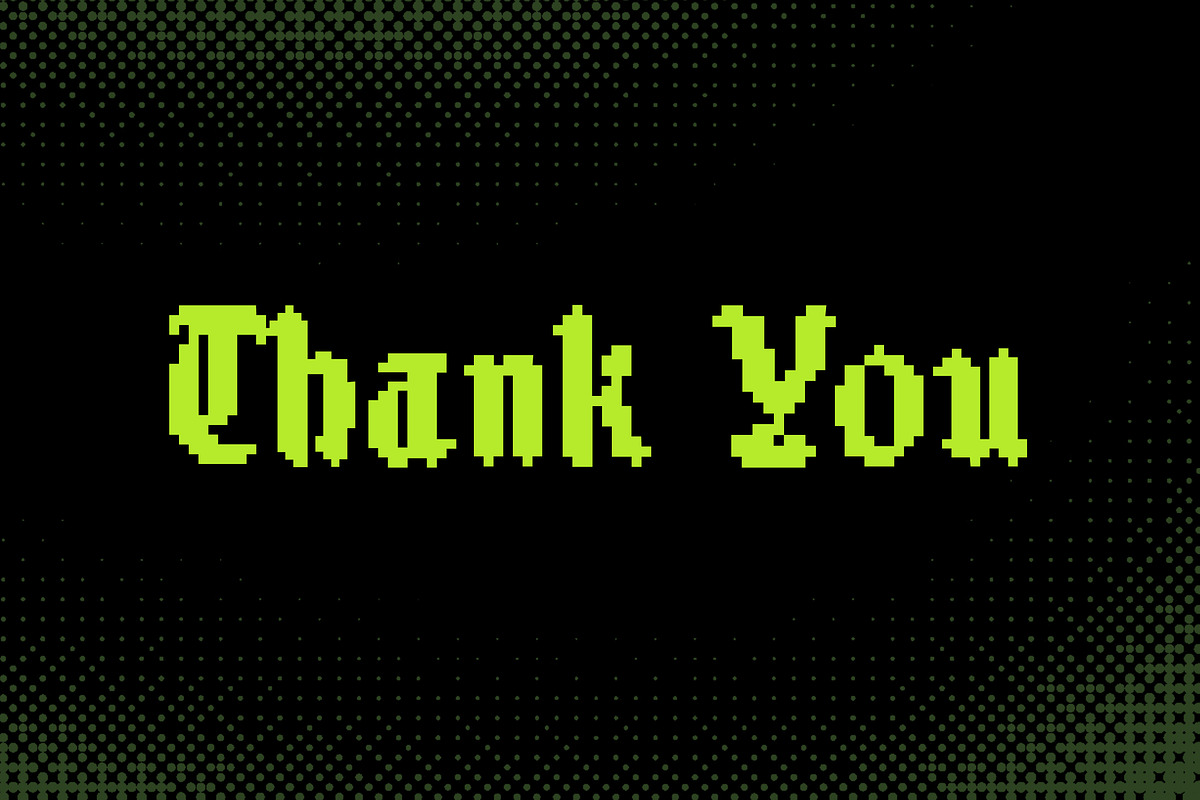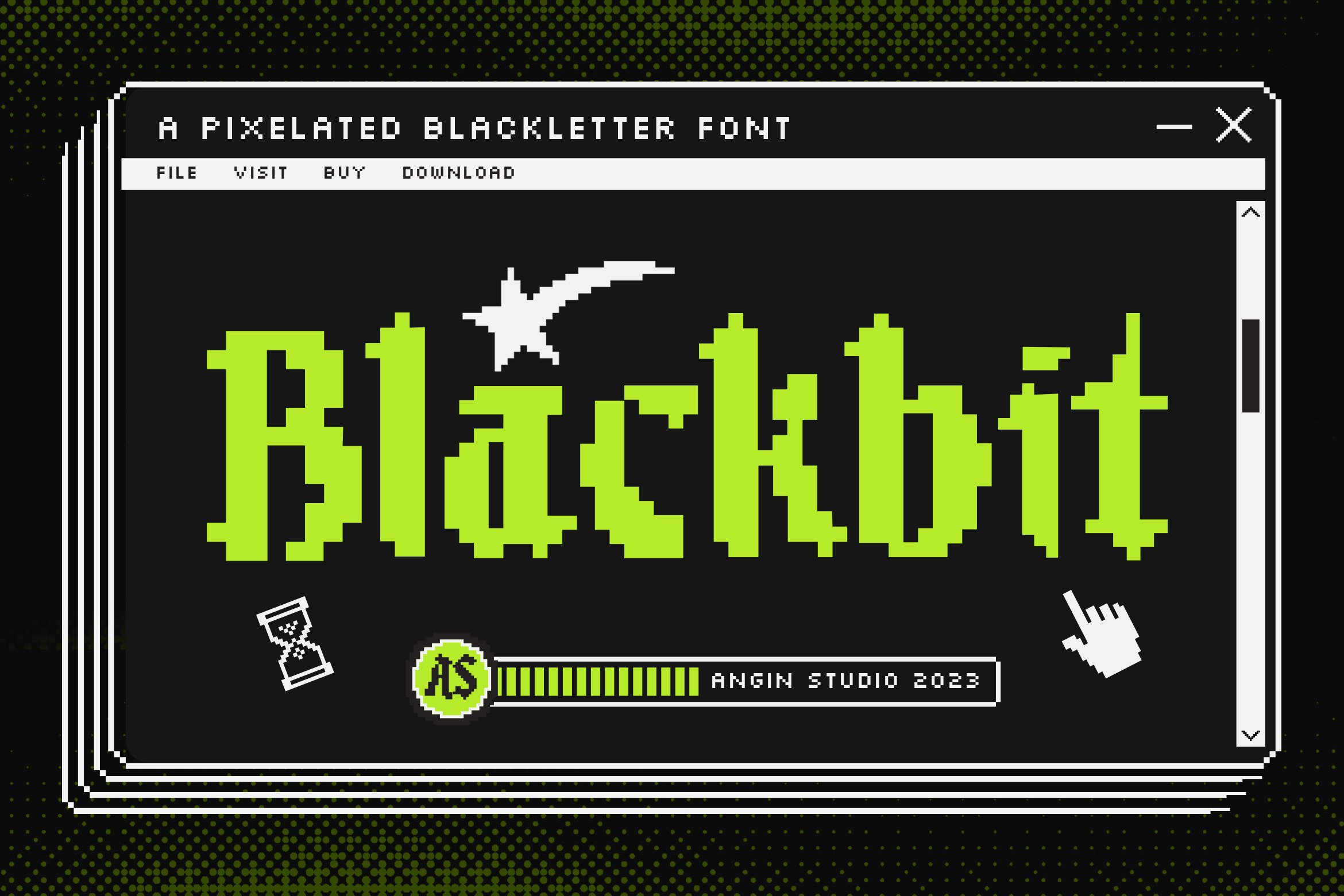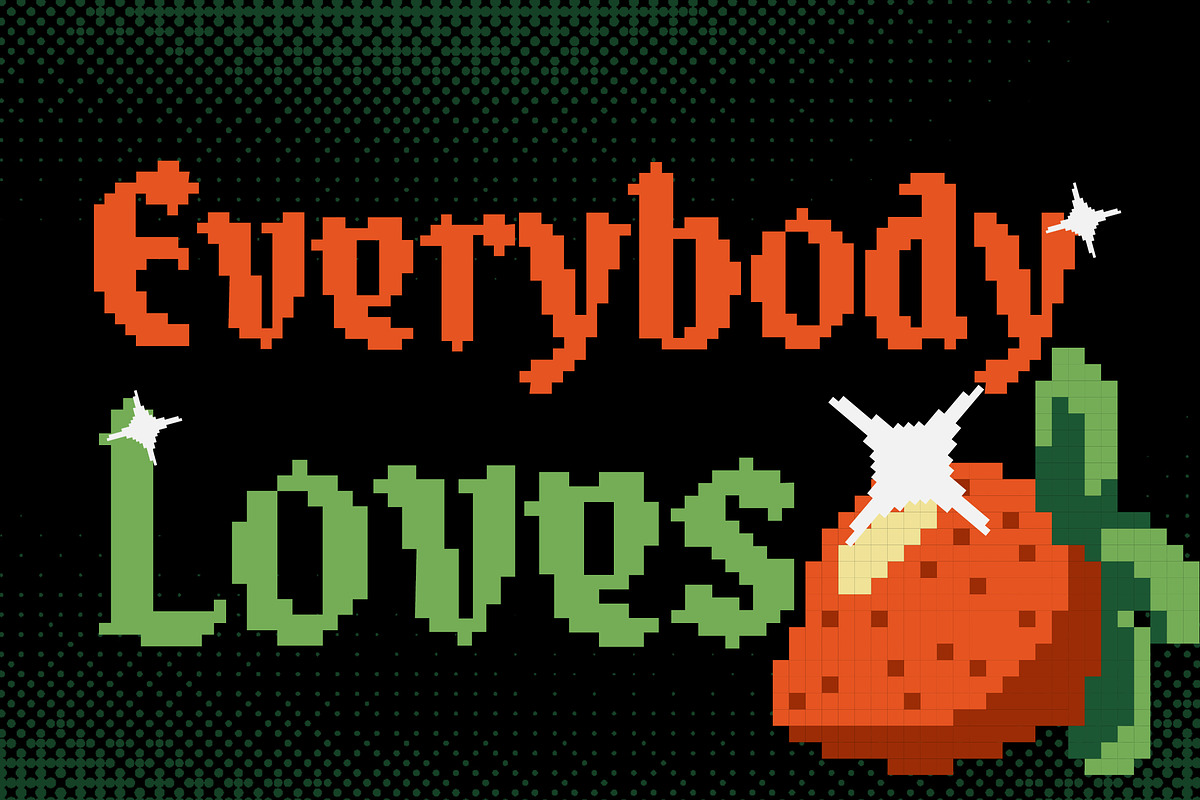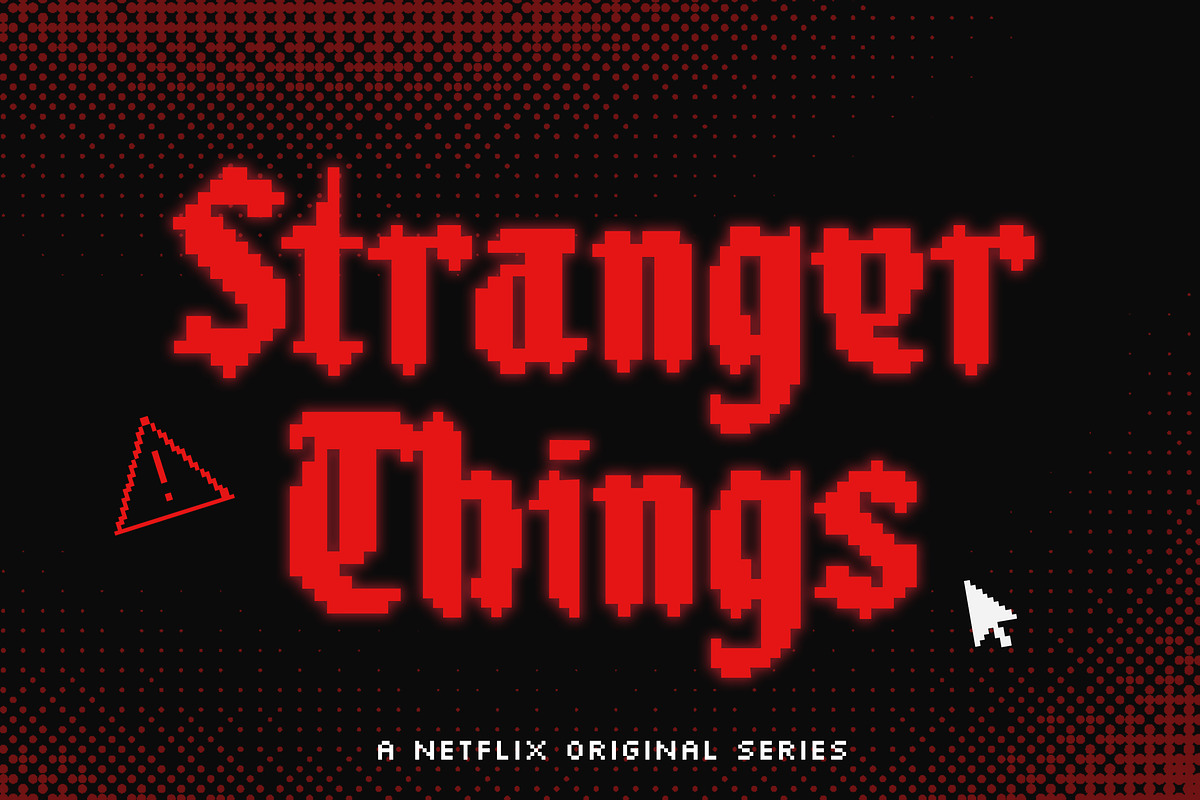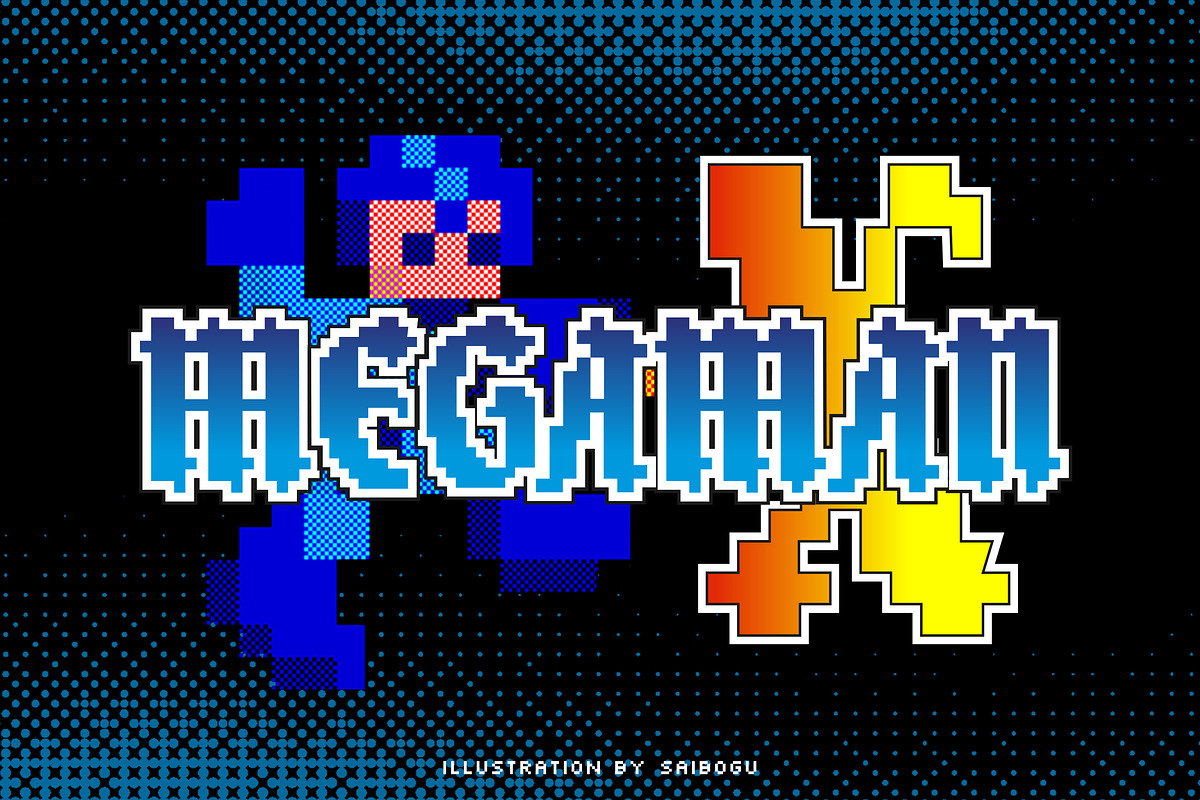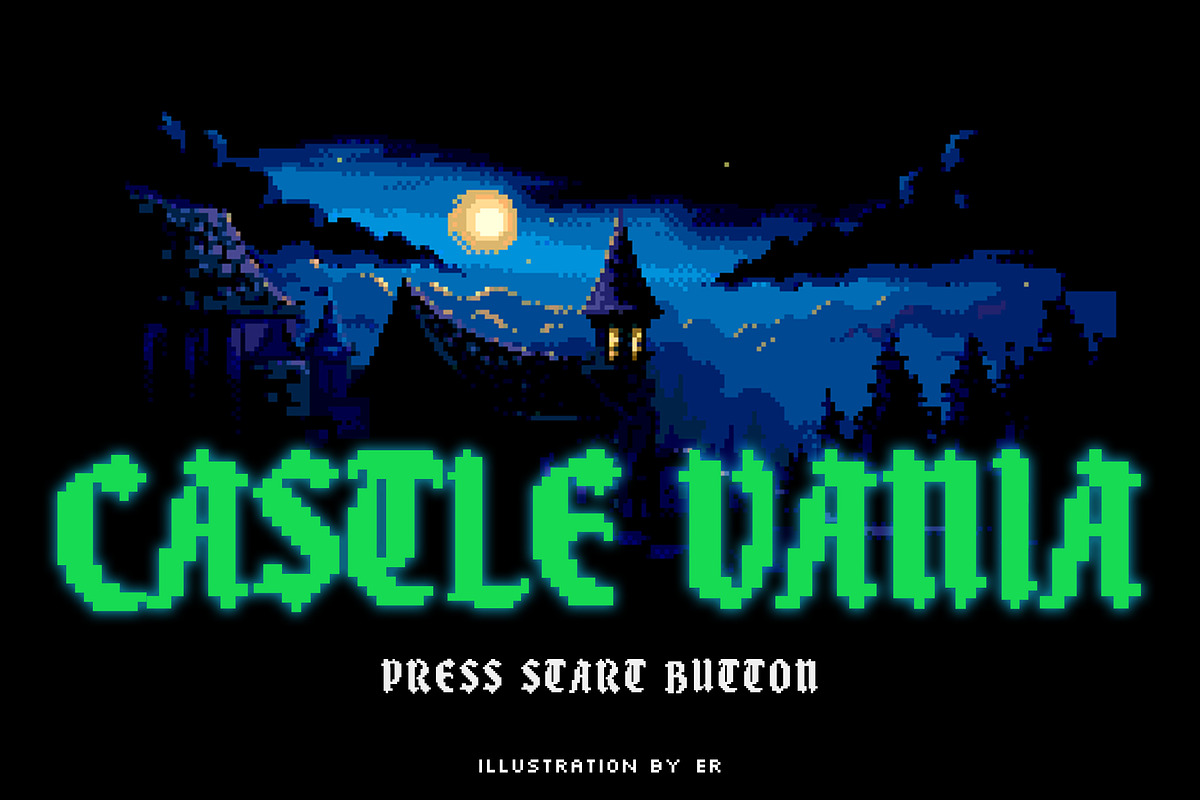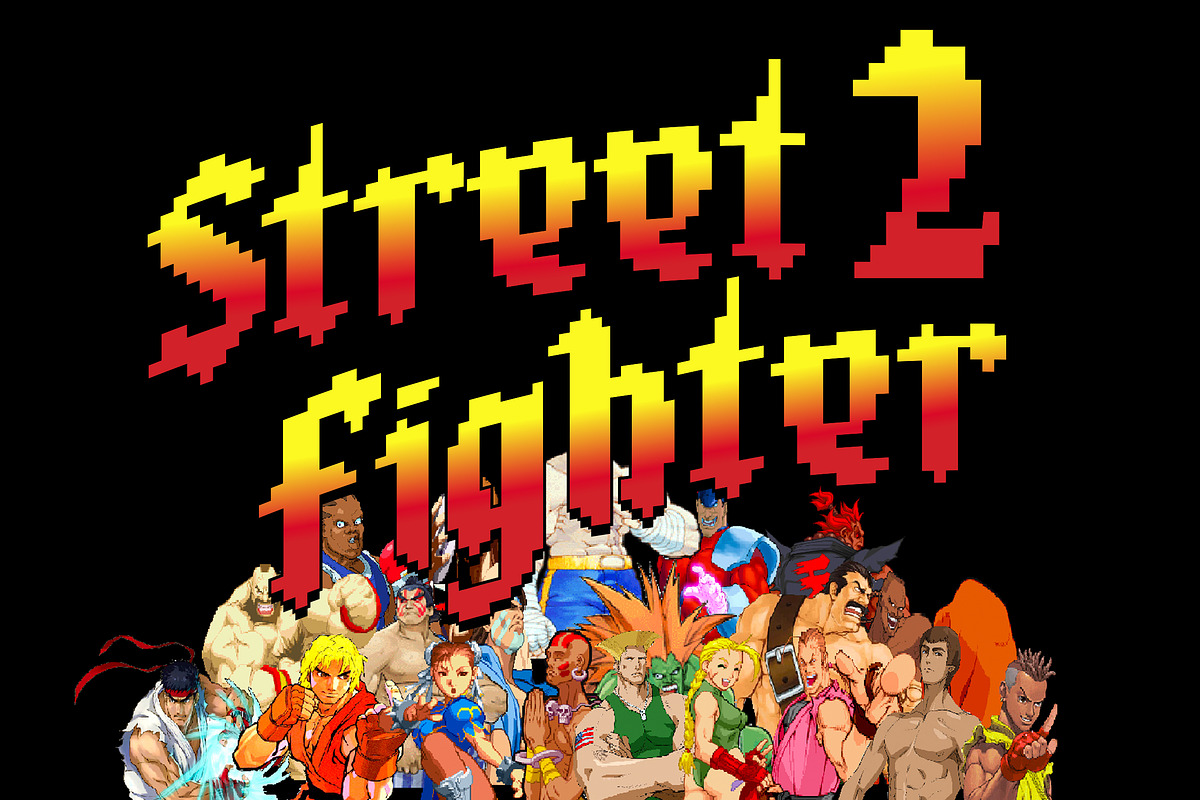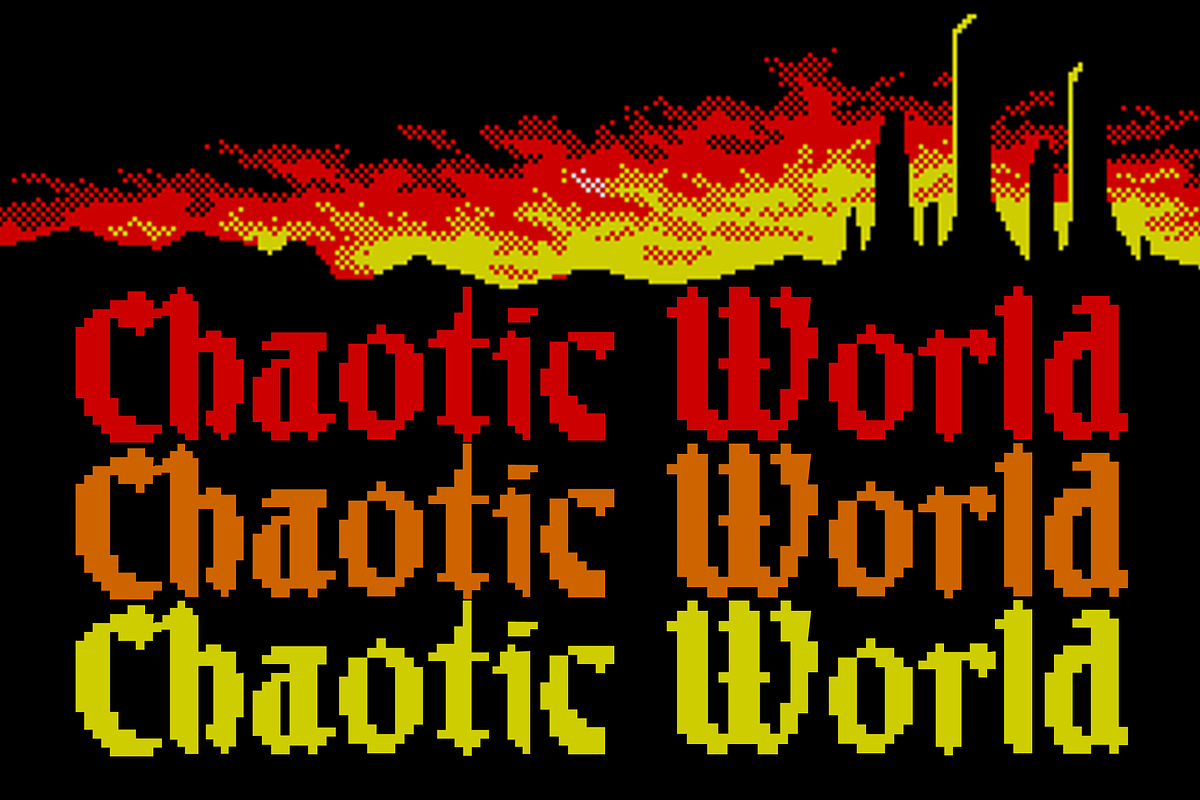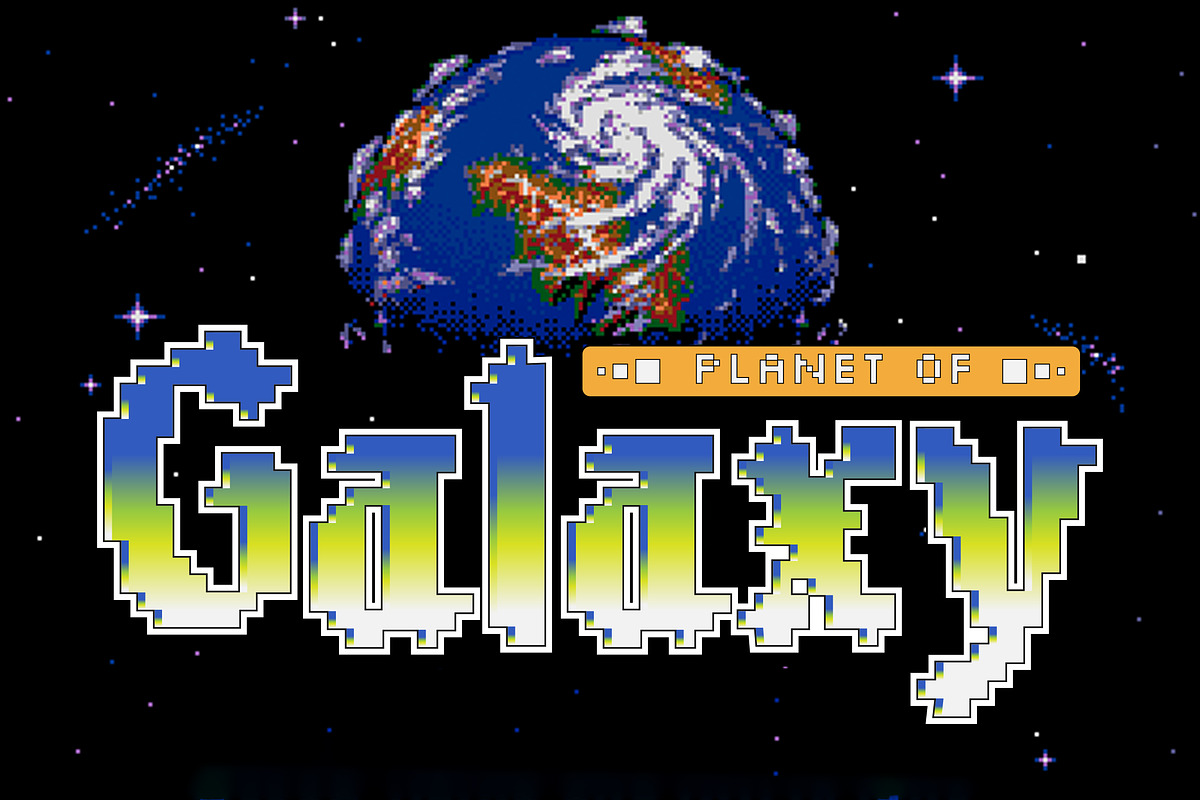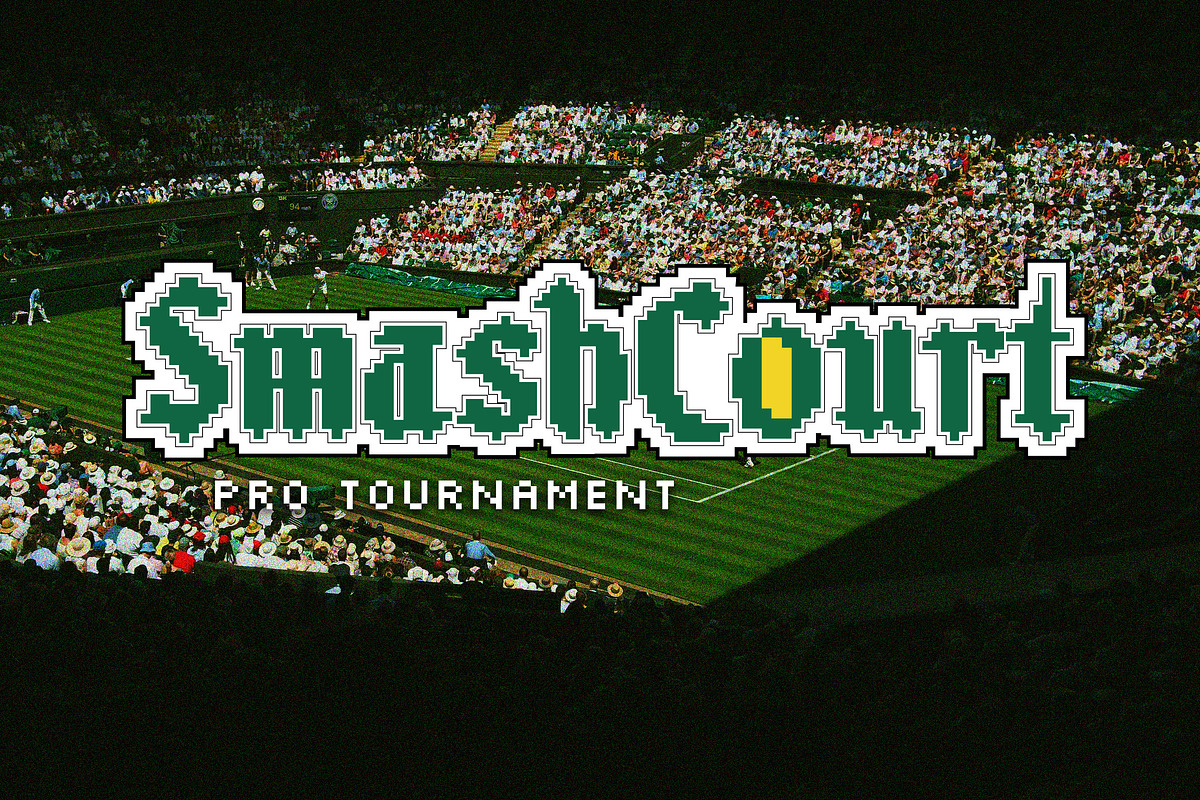
Blackbit Pixelated Blackletter Font
Where design meets pixel perfection. Blackbit is our first pixelated blackletter new font inspired by the golden era of retro games. This font will bring you back to the golden era of 8-bit and Sega game visuals. Blackbit font combines pixelated style with modern touch and readability.
Elevate your creations with our pixel-perfect font, where each character is a testament to the artistry of the pixel grid.
Not just limited to Latin, Blackbit supports multiple languages, numbers, and symbols.
It makes it easy for you to create retro designs. Whether you are working on a gaming project or just want to add some retro touch for nostalgia to your creations, this font is the answer.